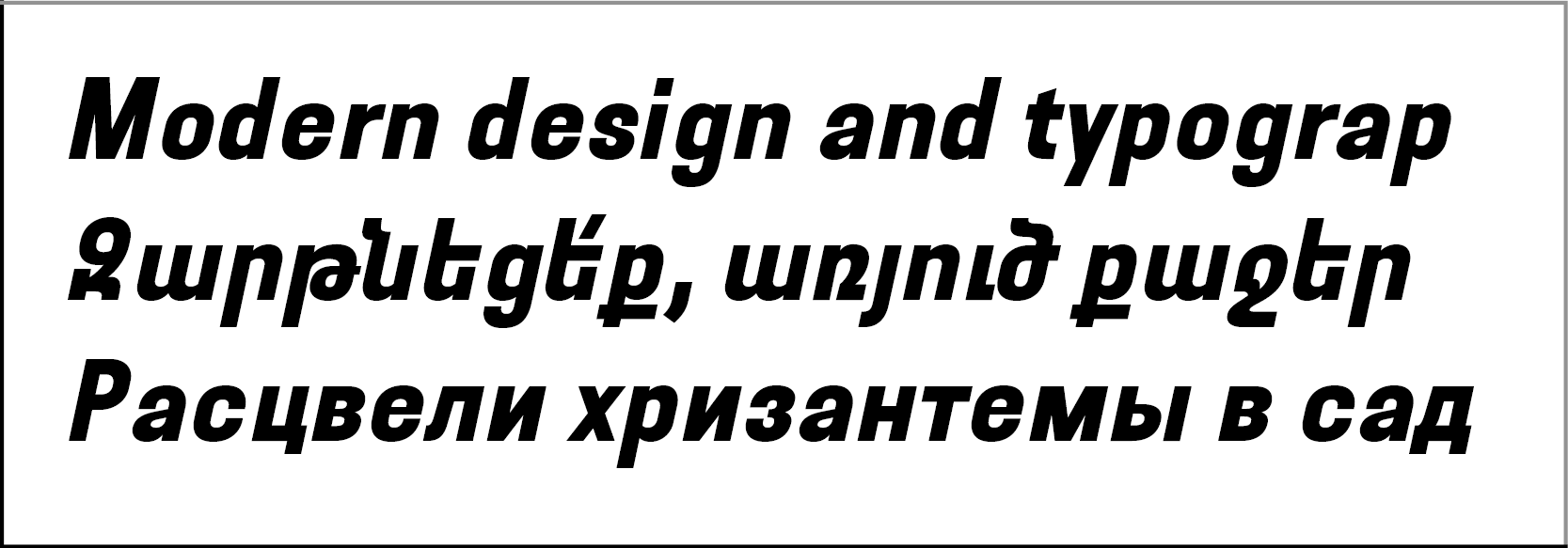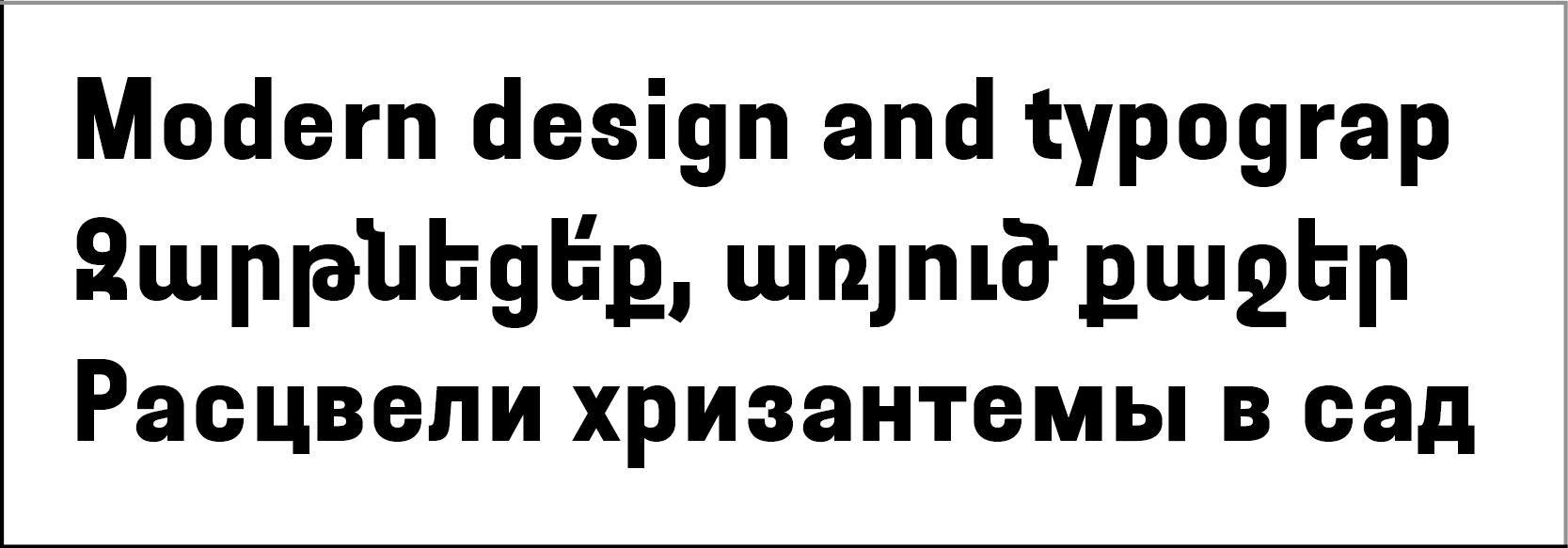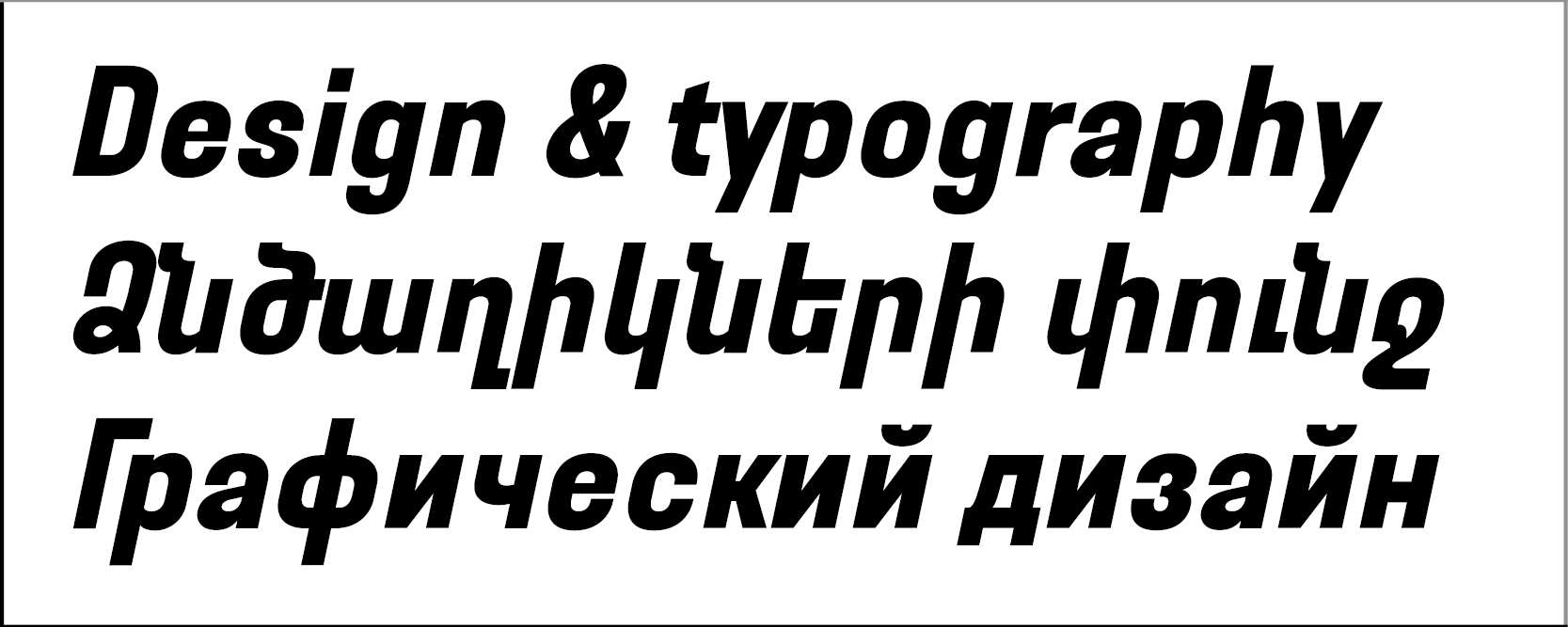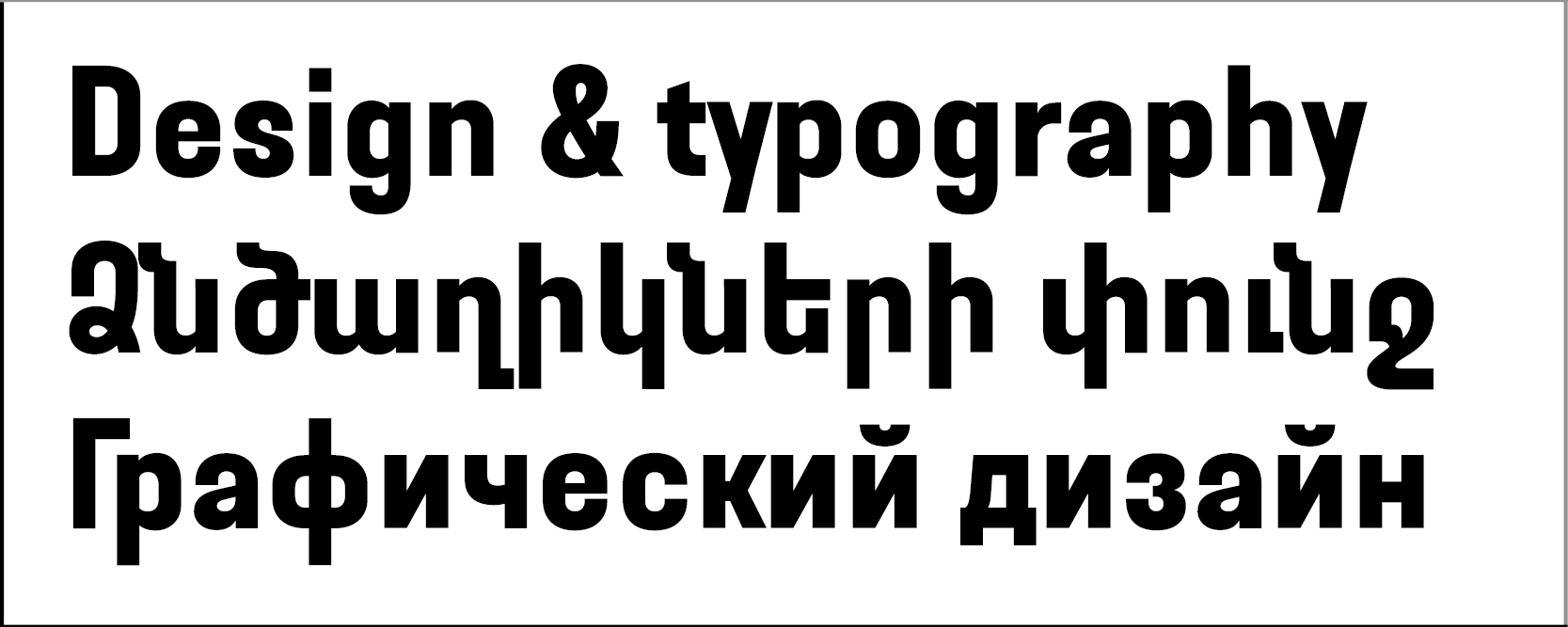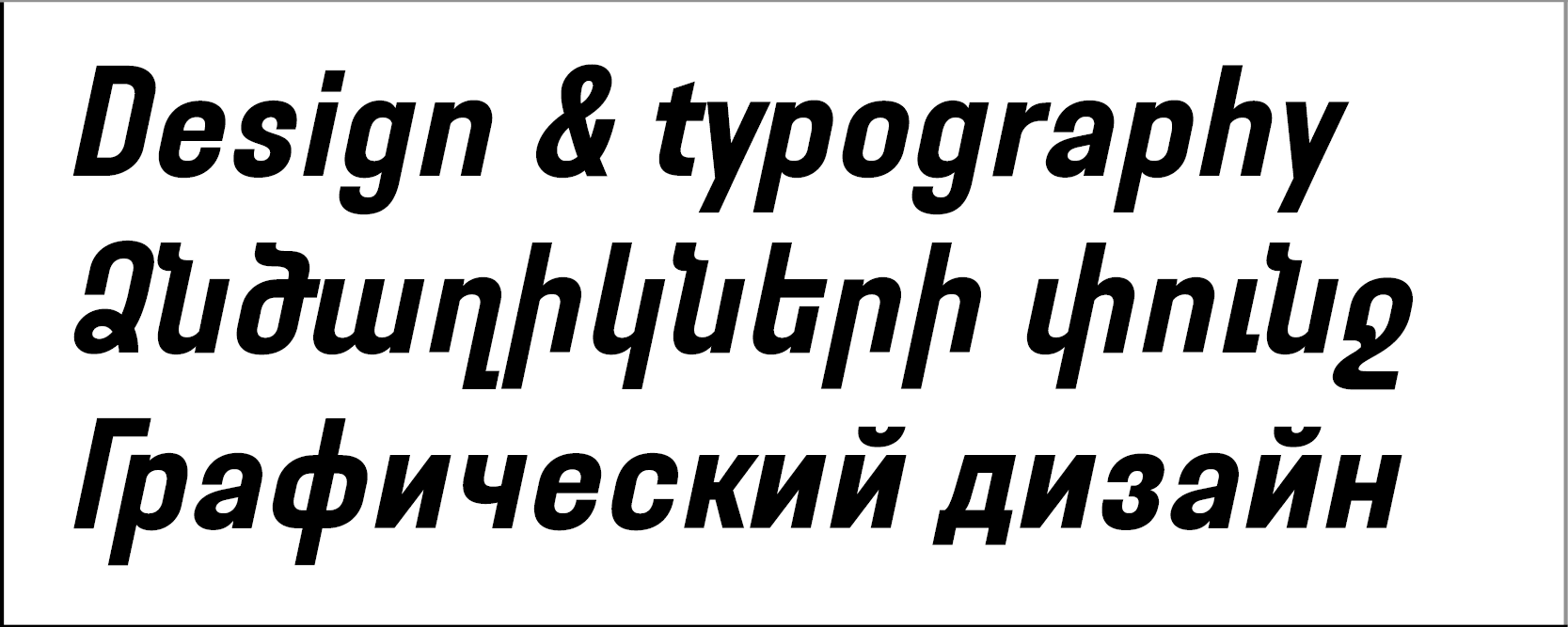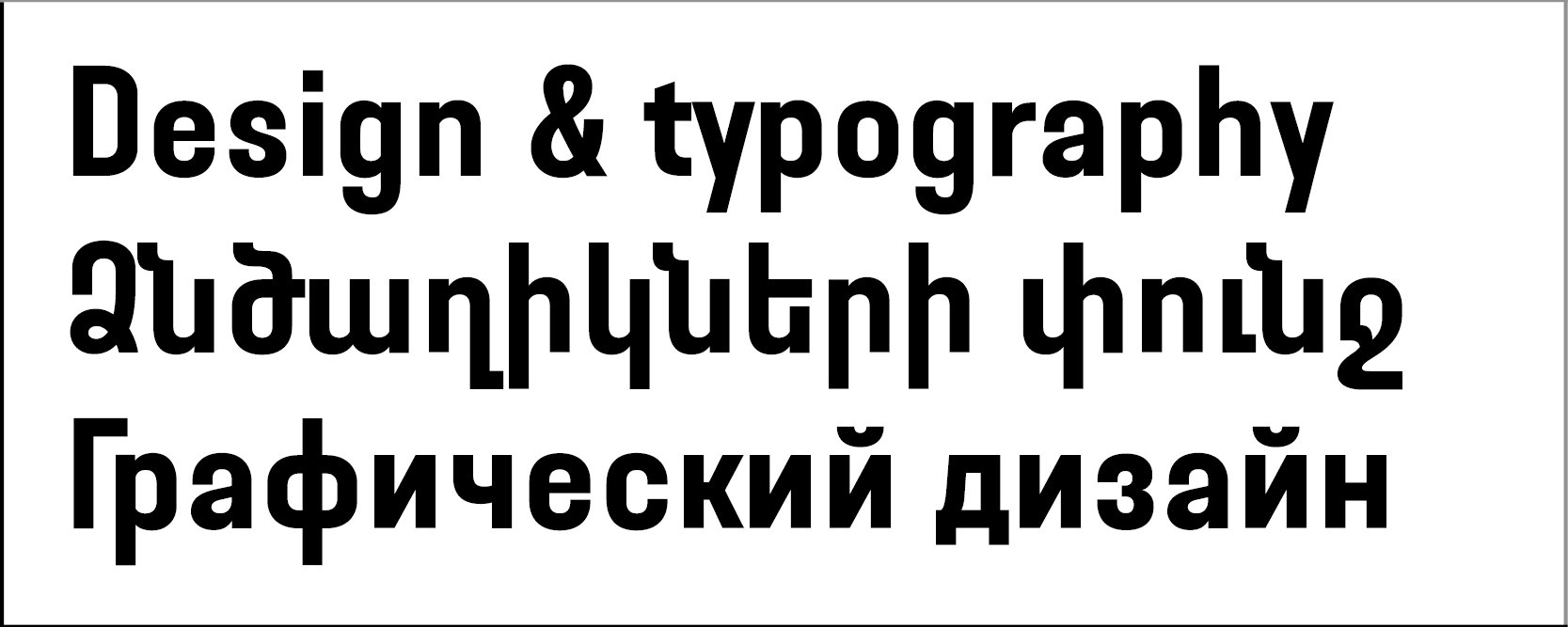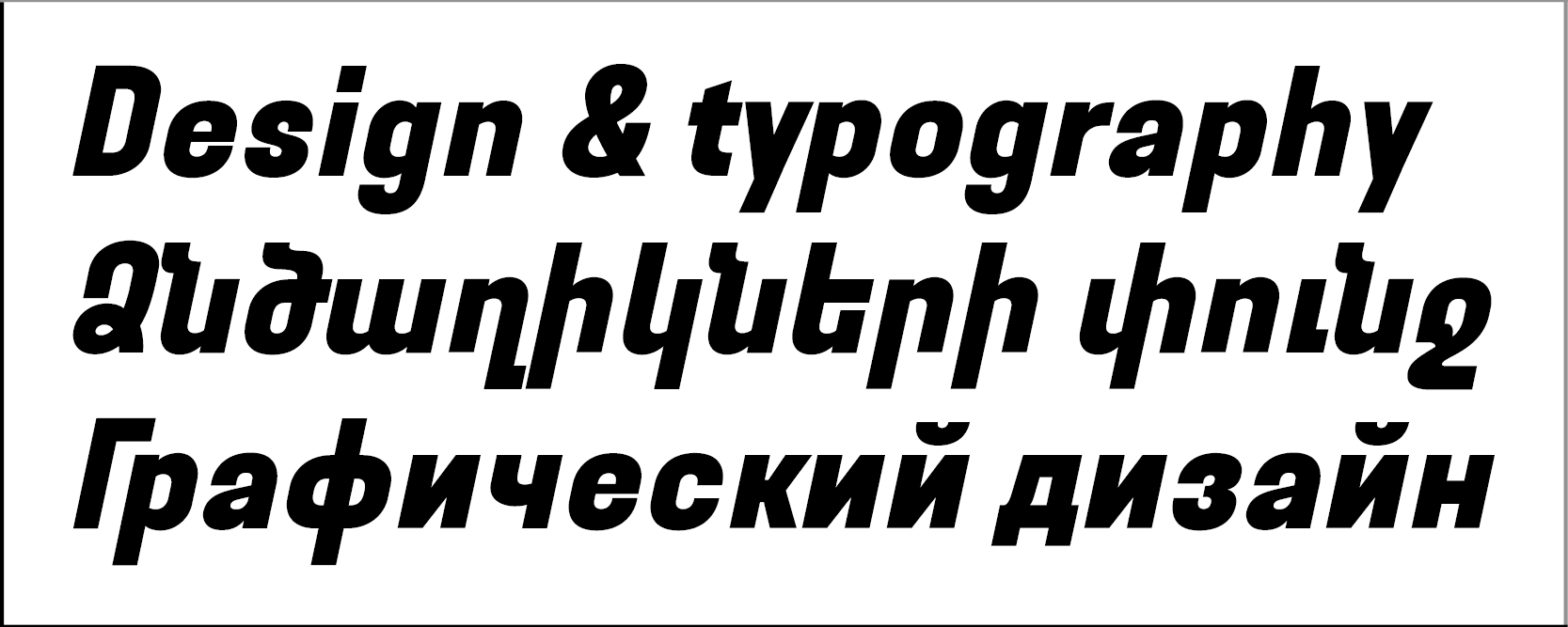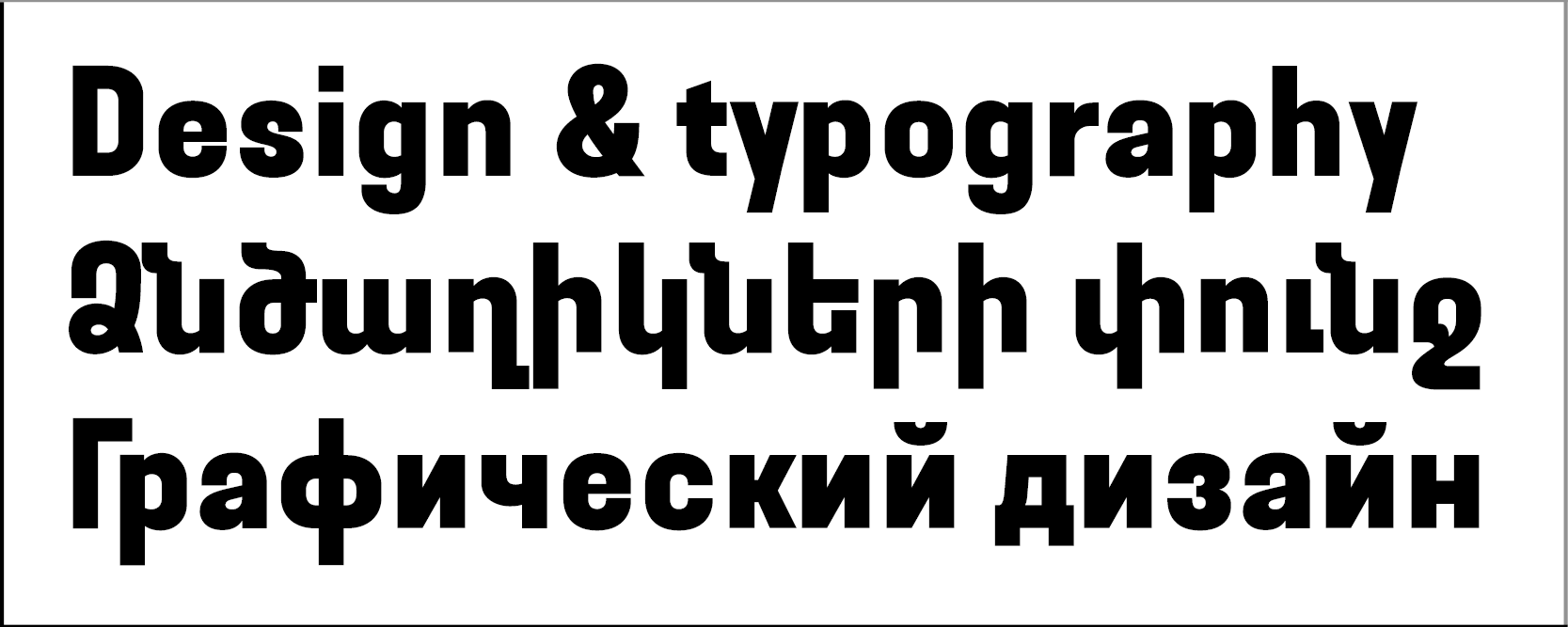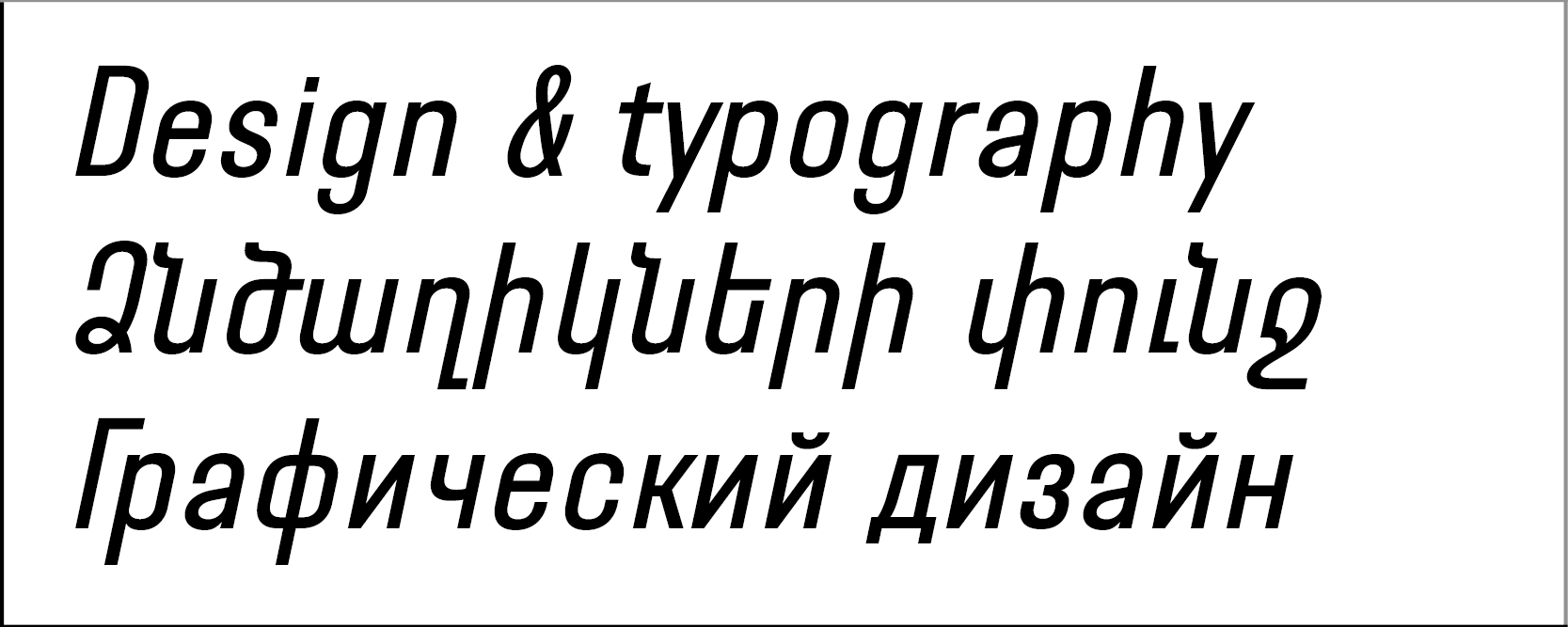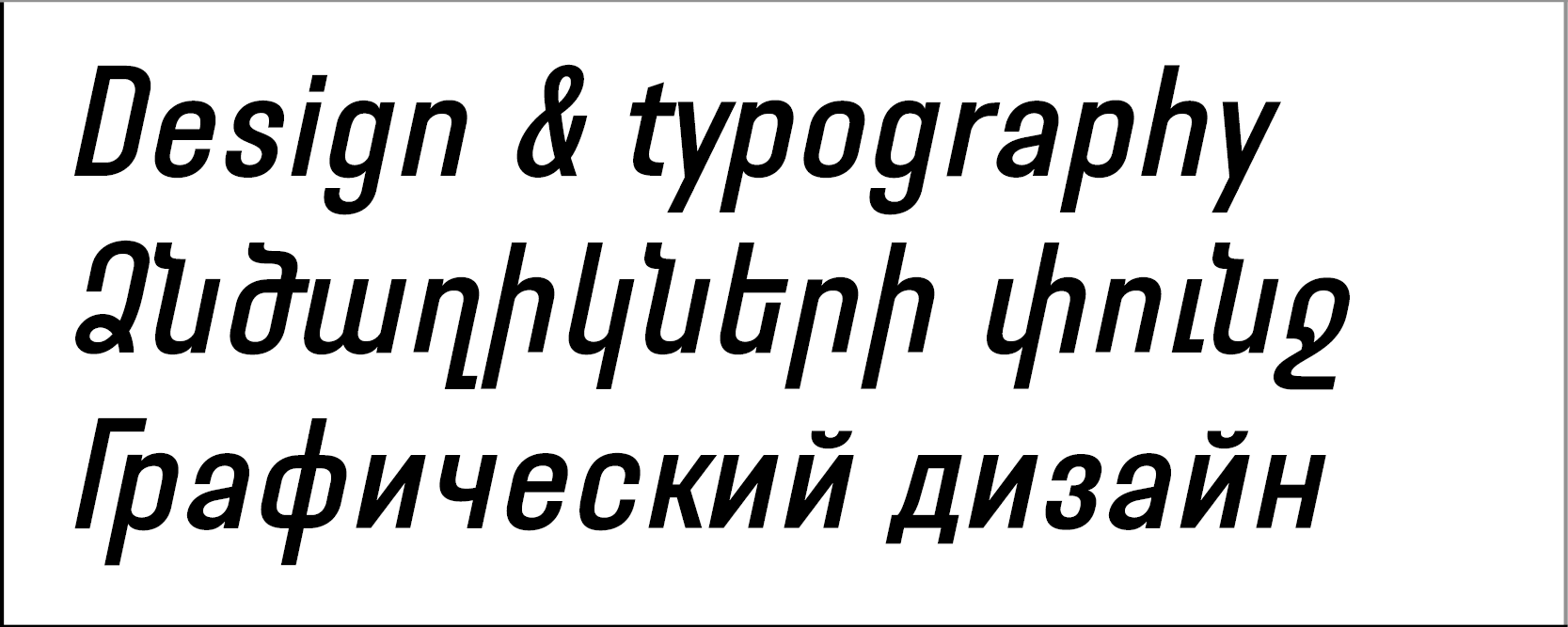
Edik Ghabuzyan, Sans-Serif Typefaces
GHEA Avetiq
Design date: 2021
The font family includes Armenian,  Latin Centra European and  Cyrillic alphabet systems.
The font can be used as a Display and title font.